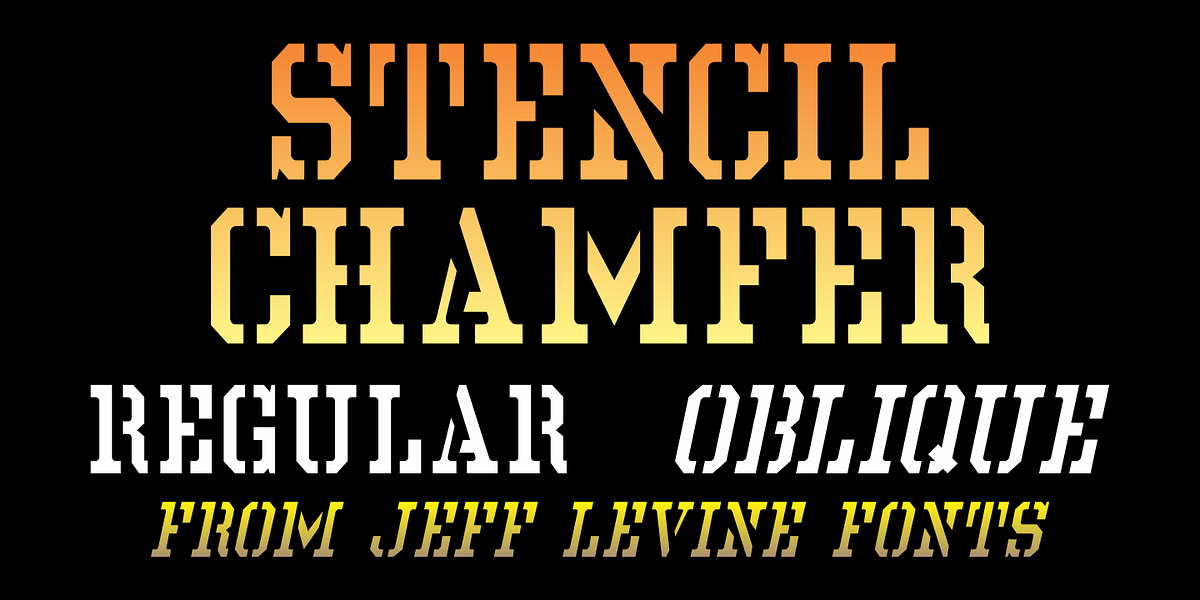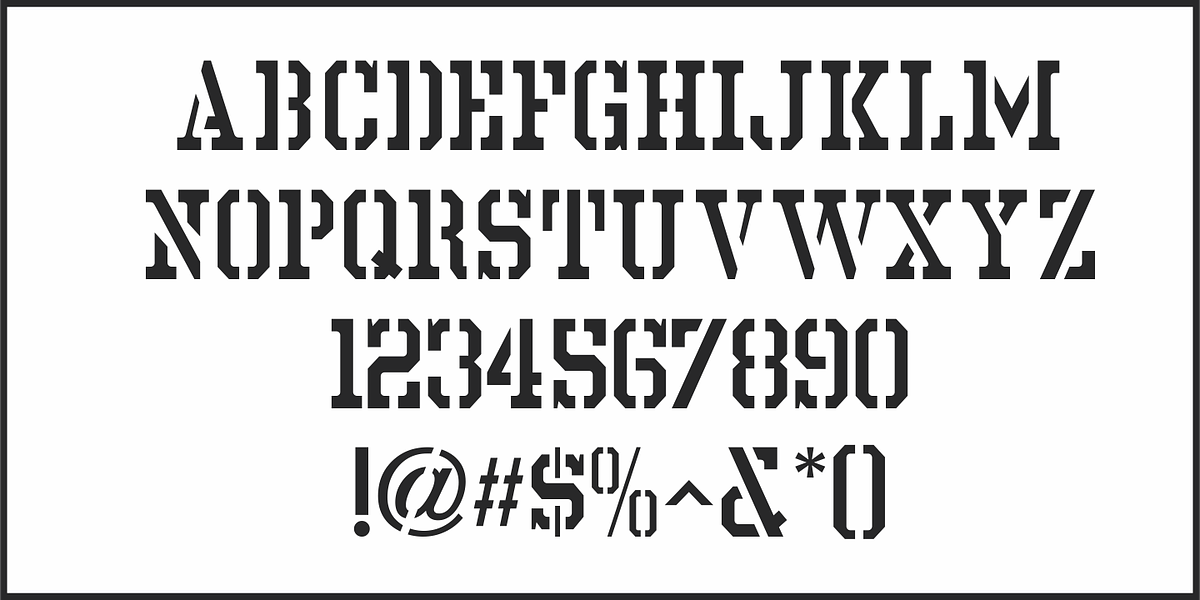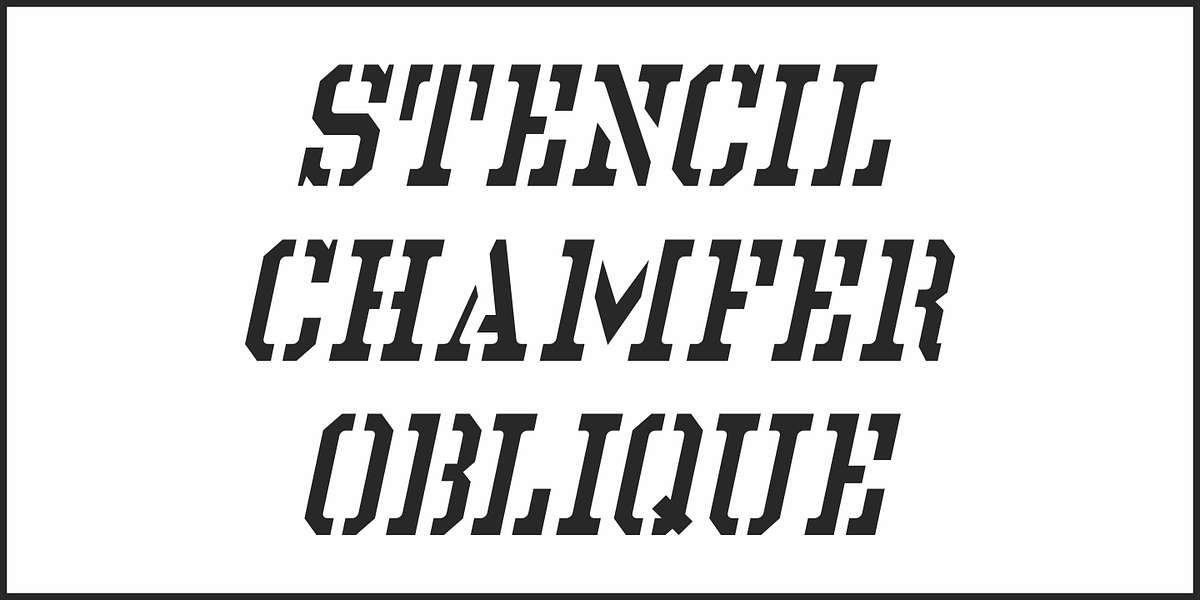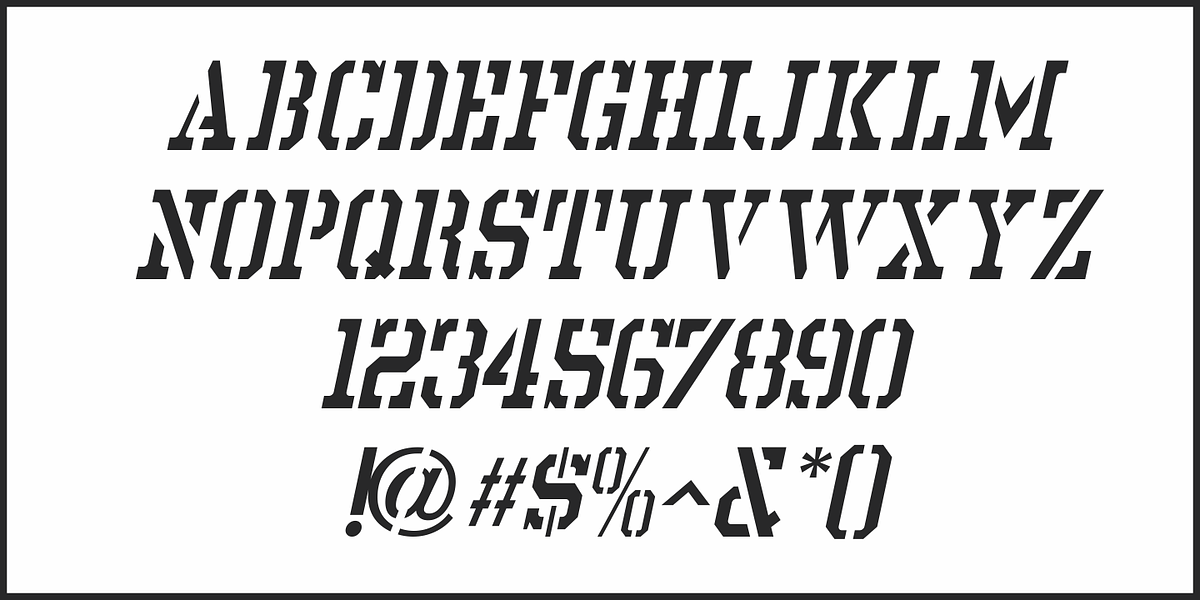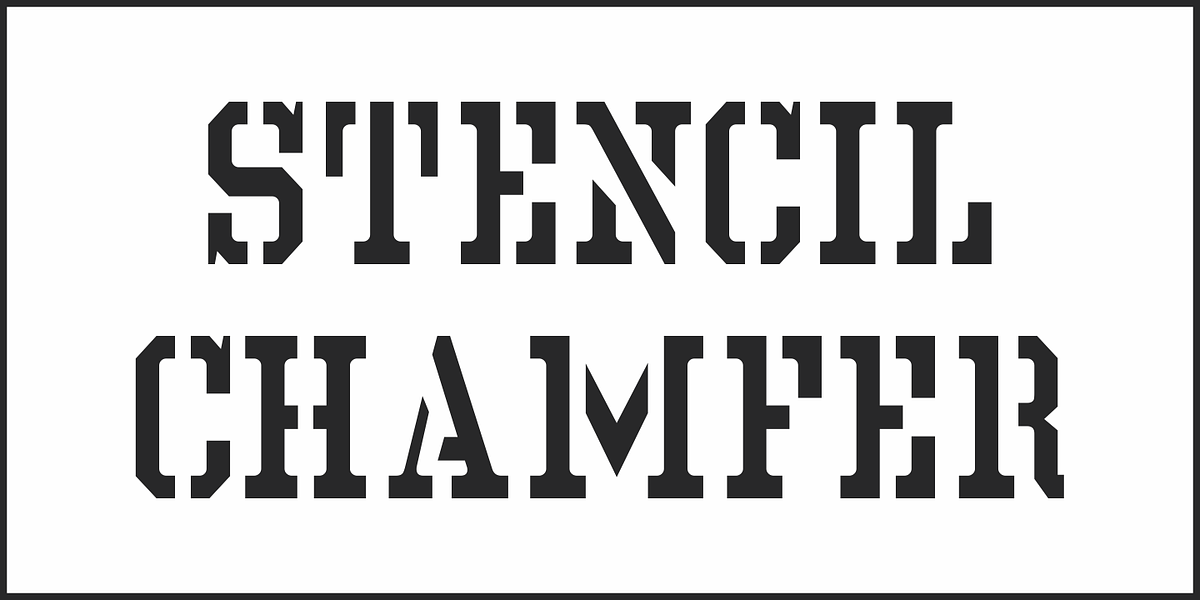
Stencil Chamfer JNL
The packing information stenciled on an antique wooden crate included a slab serif type style with chamfered corners. This design has now been re-drawn as the digital typeface Stencil Chamfer JNL, which is available in both regular and oblique versions.